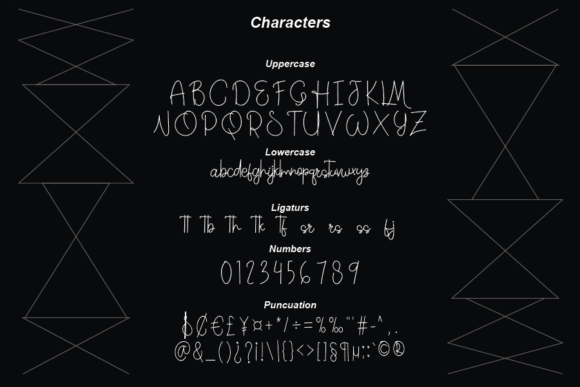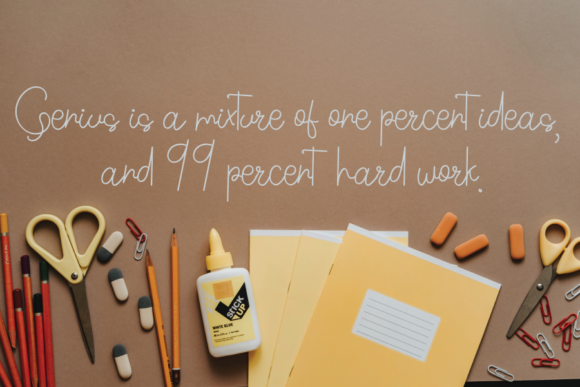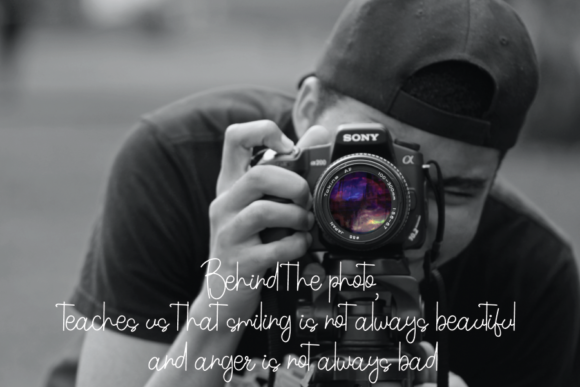
Introduction to Smart Ghosting Font
Smart Ghosting is a thin and elegant handwritten font.
Add this font to your creative ideas and notice how it will make them stand out .
Why Choose Smart Ghosting Font?
Smart Ghosting Font offers exceptional quality and versatility, making it a valuable addition to your design toolkit. Whether you’re creating for personal projects or commercial use, Smart Ghosting Font delivers professional results.